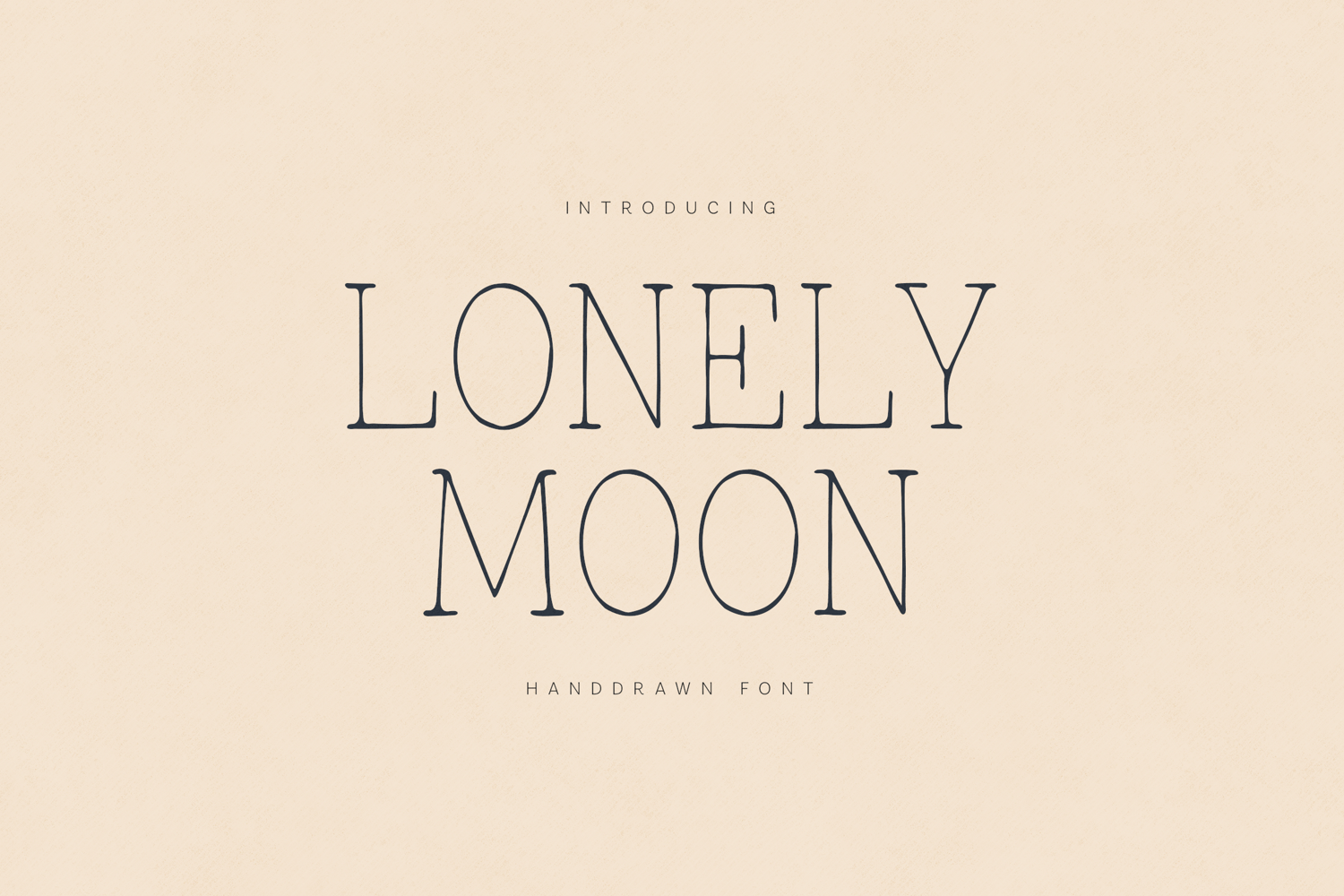
Lonely Moon Elegant Handdrawn Serif Font
Lonely Moon is an elegant handdrawn serif font designed with softness, balance, and poetic character.
With its delicate contrast, refined serifs, and subtle organic curves, it brings a warm editorial presence to modern branding projects.
Perfect for designers who want sophistication without harsh contrast, Lonely Moon blends classic serif structure with a contemporary handmade touch.
It works beautifully for:
• Editorial layouts
• Book covers
• Luxury branding
• Wedding invitations
• Fashion campaigns
• Boutique logos
• Social media quotes
• Packaging design
Its airy spacing and gentle stroke transitions create a calm, timeless aesthetic that feels refined yet approachable.
Lonely Moon is built for designers who value elegance, restraint, and emotional typography